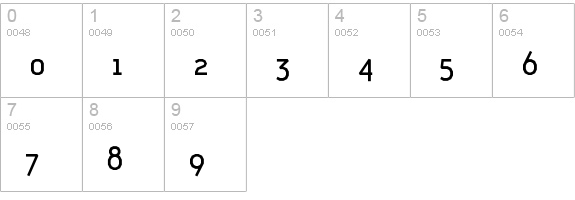
Dubius-Book is a comfortable, highly readable variant in the Dubius typeface family \xE2\x80\x94 well suited to long-form body text, articles, and editorial content.
Dubius-Book font is a stylish and versatile typeface that exudes a sense of modern sophistication. With its clean lines and balanced proportions, this font is perfect for a wide range of design projects, from branding to editorial layouts. The elegant yet approachable look of Dubius-Book makes it suitable for both professional and creative applications. One of the best features of Dubius-Book font is that it is available for free download at FontsMarket.com. This means that you can easily access and use this high-quality font in your projects without any cost. Whether you're a designer looking to add a touch of elegance to your work or a business owner in need of a polished font for your branding, Dubius-Book is a fantastic choice. With its timeless appeal and easy accessibility, Dubius-Book font is a must-have for anyone looking to elevate their design projects. Download it for free today at FontsMarket.com and see how this versatile font can enhance your creations.